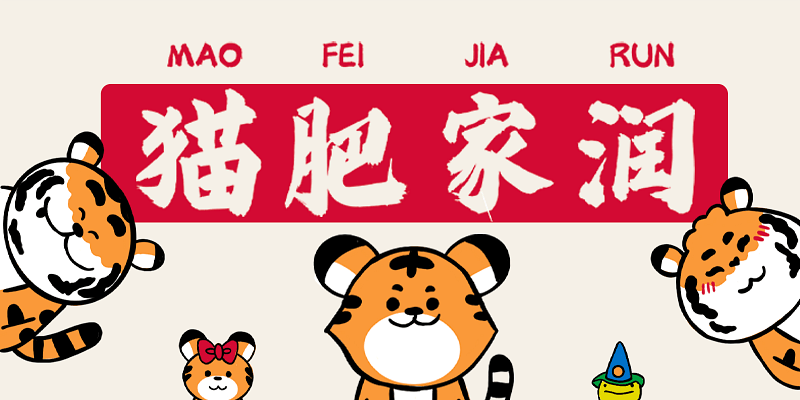
HelloFont ID Juan Yong Font Free Download is an elegant and stylish typeface that combines traditional brushstroke influences with a contemporary, refined design. Featuring smooth, flowing curves and well-balanced characters, this font is perfect for creating sophisticated designs such as branding, invitations, logos, posters, and cultural projects that require both grace and impact.
The HelloFont ID Juan Yong Font stands out for its harmonious structure and fluidity. Its calligraphic origins are evident in the beautiful strokes, while the overall design is modern enough to suit a wide range of creative projects. It works especially well in designs that want to convey elegance, tradition, and artistic beauty.